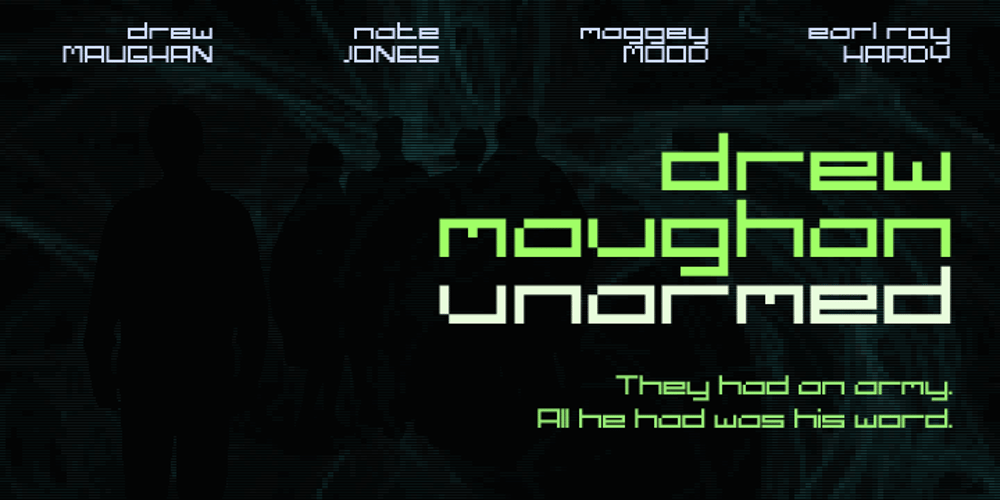
DM Unarmed
DM Unarmed font
DM Unarmed Font Family was designed by Drew Maughan and published by DM Founts. DM Unarmed contains 1 styles and family package options. Unarmed began life as a series of rectangles in Fireworks. The task was designing my own business card for the first time in years, and the perfect lettering couldn’t be found in either free or commercial fonts. While there were some good choices, none of them really communicated who I was. Initially only the lowercase letters in my name were created, with each being designed around a 7 x 4 grid of squares. I liked the result so much that I wanted to use the same typeface in different projects – and to save time in future, I decided to create this font. In creating DM Unarmed, the intention was to avoid diagonal lines, and to keep all the lines horizontal, vertical and grid-like. This made creating some of the characters – particularly the rounded ones and the letters X and Z – challenging. Coming from both worlds, I wanted to achieve a blend of technicality and creativeness, without trying to pretend one was the other. For best results this font should be used for large and prominent text, although it works at smaller sizes up to 12pt. I’ve spent a lot of time trying to hint a few characters that wouldn’t play ball, such as 2, 7 and 8. In case you’re wondering: DM Unarmed got its name from my philosophy of facing challenges without reliance on tools and weapons.